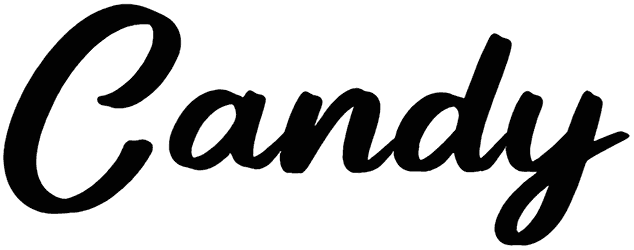
Candy Font
Candy is like a handwritten love letter, imbued with yesteryear’s passion and love. Every jerk and rotation of the letters in this script font can tell a story that will immerse your audience in a wholly personal and human atmosphere.
With its delicate lines and glamorous flourishes, this font is perfect for anything from wedding invitations to album and book cover designs. It is as if the writing takes its own life and turns the mundane into something sublime.